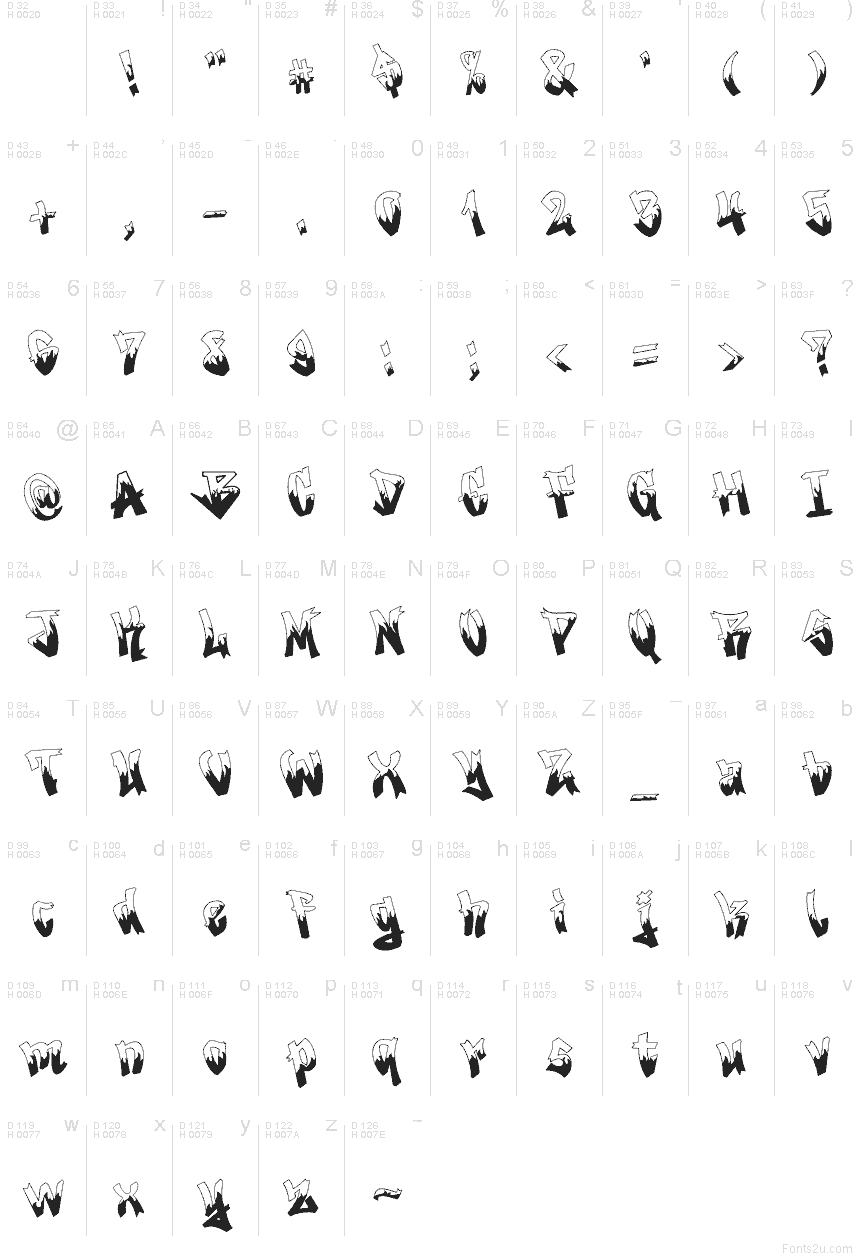
Rocker Rusher
Rocker Rusher by Rocker Rusher is a free graffiti font shaped by a jagged black underlayer that rises into each letter like torn paint or climbing shadows. That repeated split between the white outline and the dark interior gives the lettering a rough street-tag texture, while the pointed bends keep it from feeling soft or bubbly.
Posters, mixtape graphics, skate flyers, album art, and club event headers all make sense here, especially when you want the text to feel sprayed, cut, and slightly unruly. The broken fill pattern gives short words enough graphic bite for logos and merch marks without needing extra illustration around them.